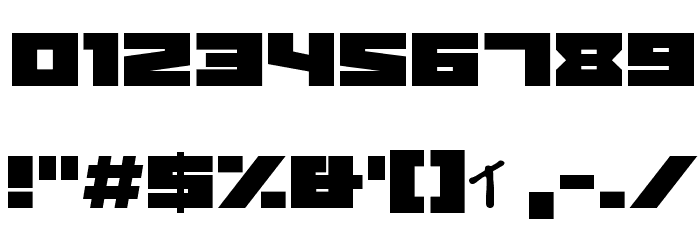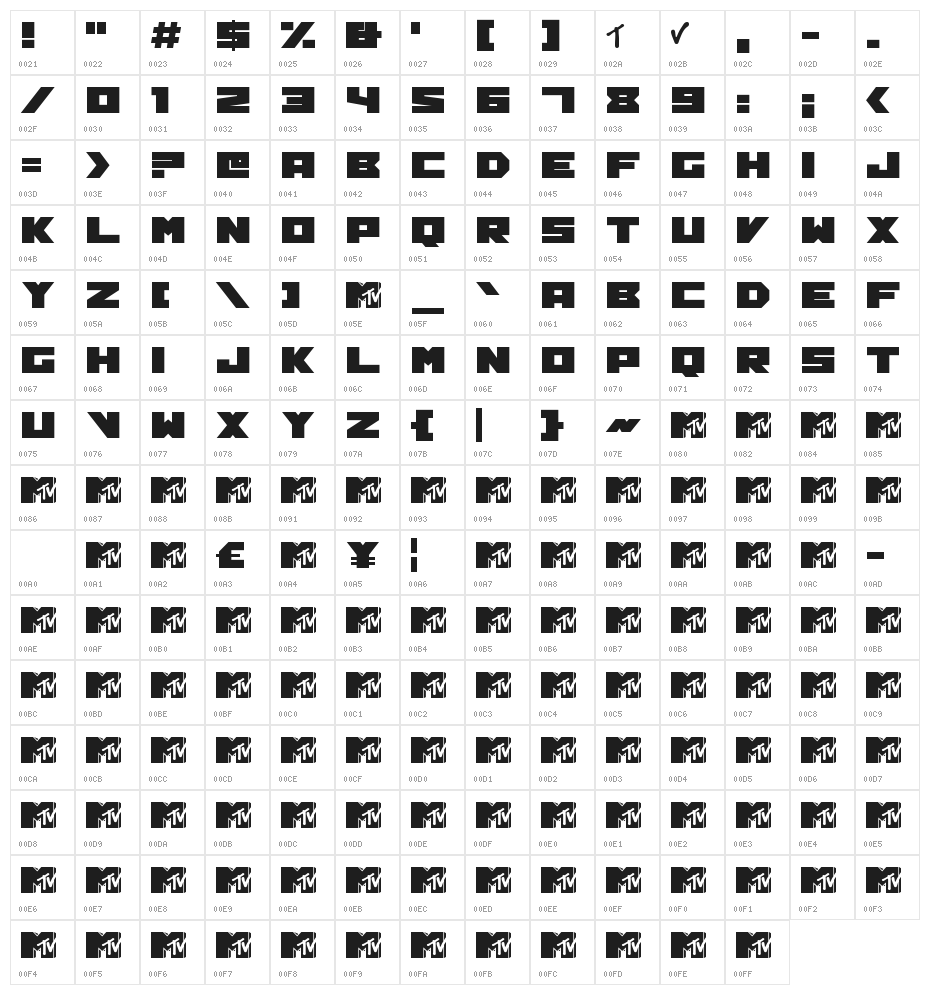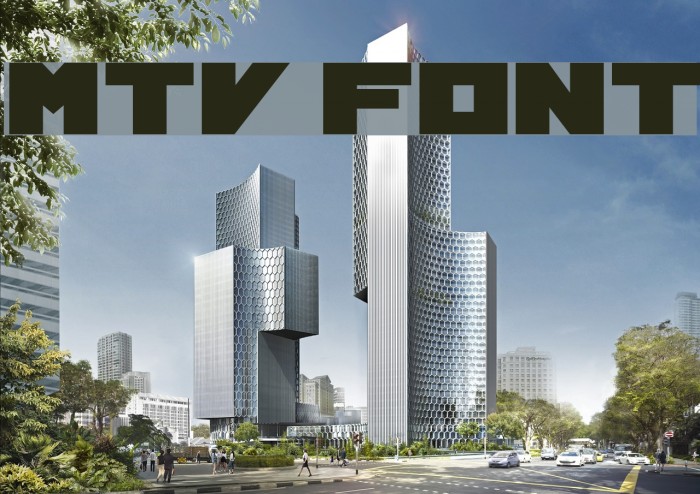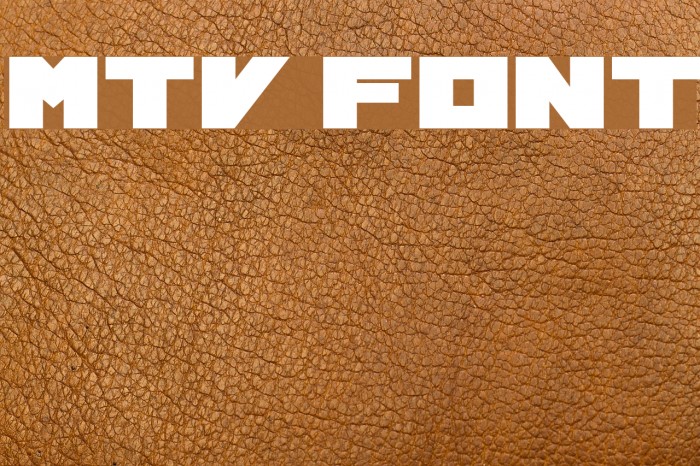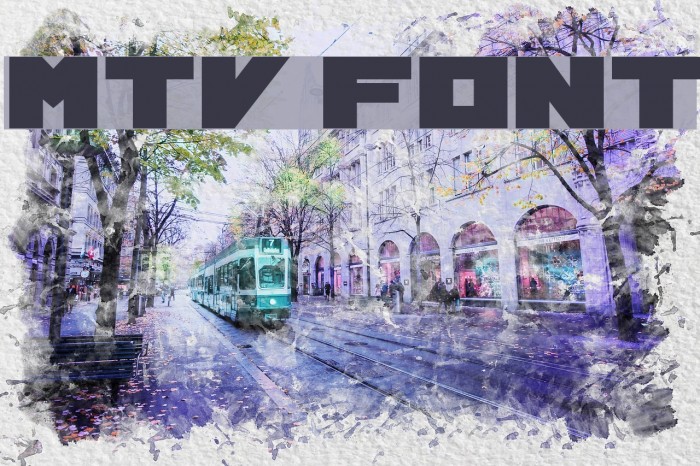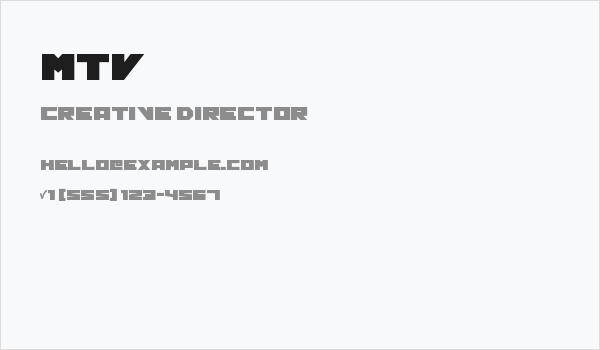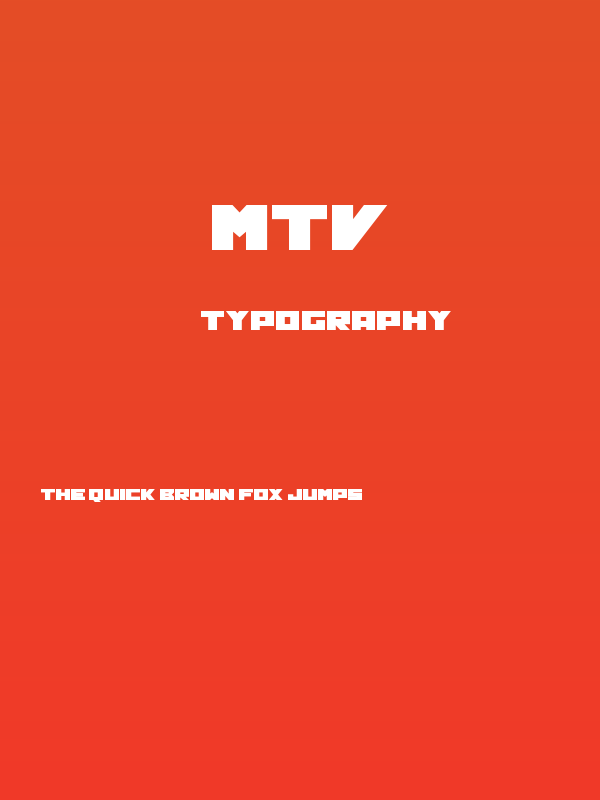
MTV Font
MTV Description
This font features a bold and geometric design with a strong, impactful presence. The characters are constructed with thick, block-like shapes that convey a sense of strength and modernity. The angular cuts and sharp edges give it a futuristic and industrial feel, making it stand out in any design. The uniformity in stroke width across all characters ensures a cohesive look, while the unique styling of certain letters, such as the 'V' and 'Y', adds a touch of distinctiveness. The numbers and special characters maintain the same bold and structured aesthetic, ensuring consistency throughout the font set.